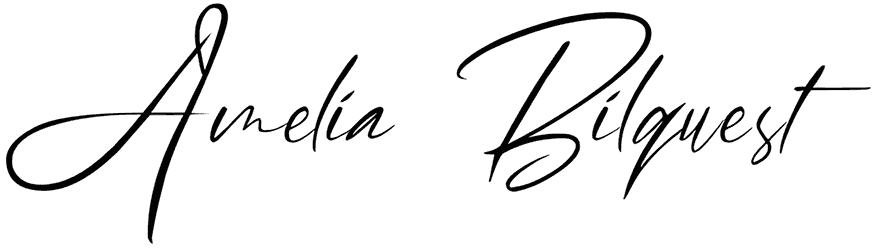
Amelia Bilquest Font
Amelia Bilquest is a cursive script font; its characters dance along the baseline, thus evoking a sense of precision, fierceness, softness, or vitality in the audience’s minds and easily persuading them to follow all of your content.
Aside from the lack of good readability, due to its unique style, this invitation font lets you add your own personalized touch to all of your editorial projects, such as magazines, blog posts, gift cards, wedding invitations, or applications.